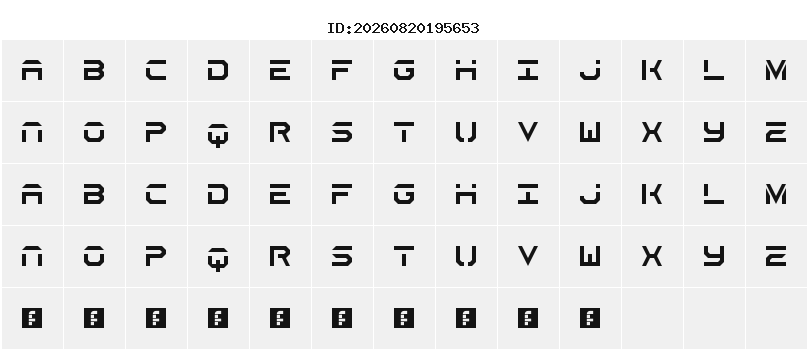
• Font Name: Secrets Stencil
• Designer: GeronimoFonts
• Description: ‚ÄúSecrets Stencil‚Äù was built with FontStruct
About Secrets Stencil.ttf
Secrets Stencil.ttf is a modern, elegant sans-serif font designed for ultimate readability and visual harmony. Perfect for branding, headlines, web design, and print materials.